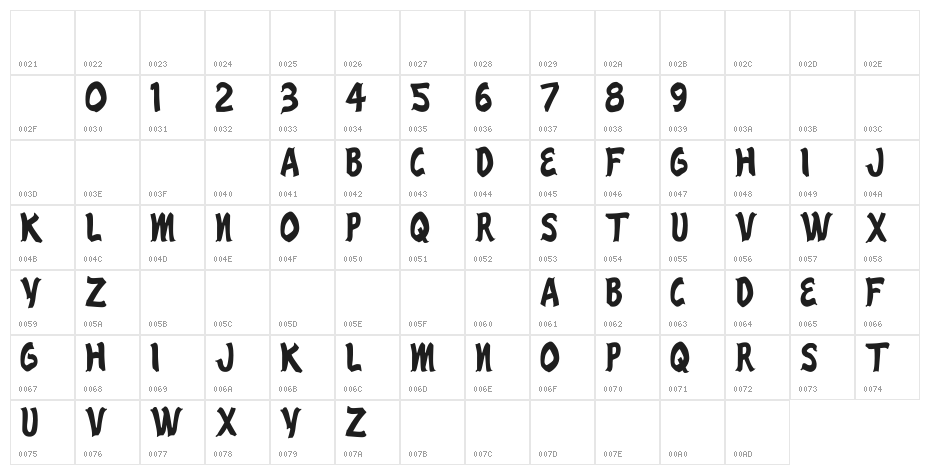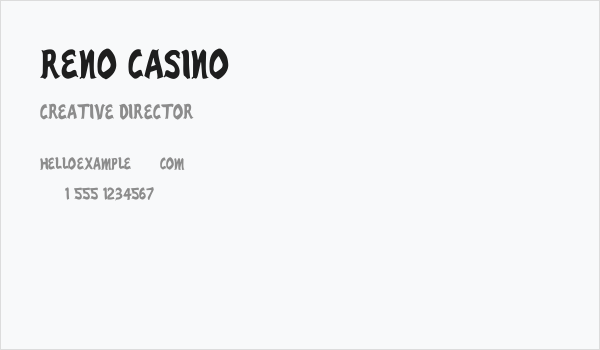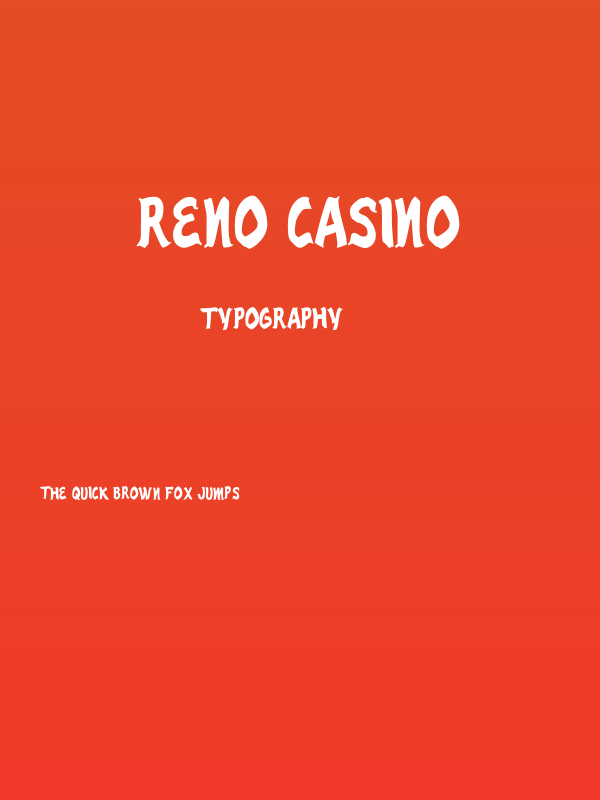
Reno Casino Font
Reno Casino Description
This font features a bold and dynamic style with a playful, hand-drawn appearance. The characters have a slightly irregular shape, giving them a lively and energetic feel. The strokes are thick and consistent, contributing to a strong visual impact. The uppercase letters are particularly prominent, with unique curves and angles that add to the font's distinctive personality. The numbers and special characters maintain the same boldness and playful design, ensuring a cohesive look across all elements. This font is well-suited for projects that require a fun and engaging aesthetic.
| Overall Style | Playful, Energetic |
| Proposed Projects | Ideal for posters, children's books, playful branding, and event invitations. |